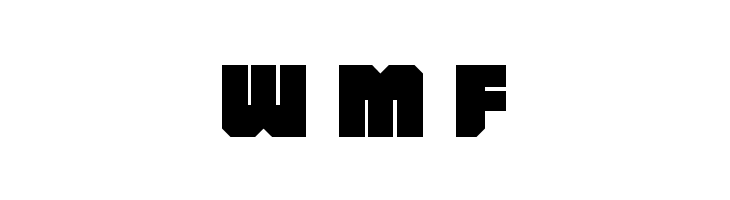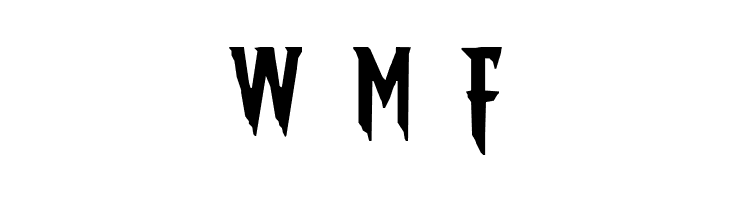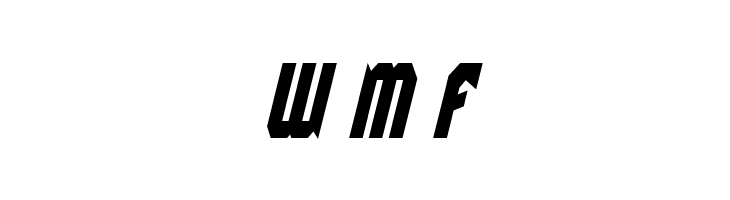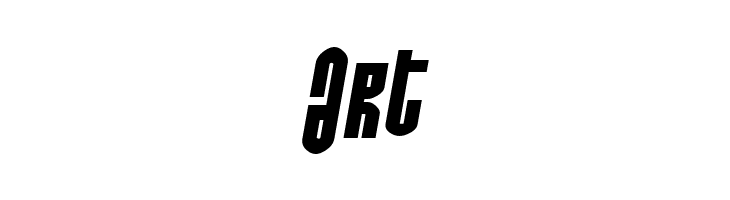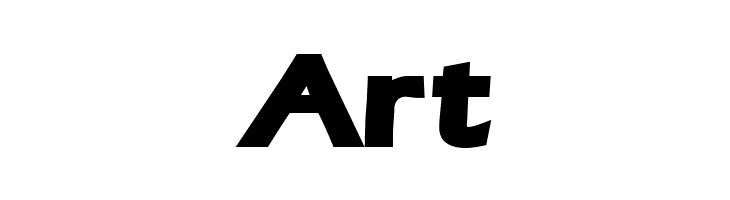
A bold, gothic-inspired font with sharp, angular edges and intricate details.
A bold, distressed font with a rugged, military-inspired design.
A bold, distressed, and condensed italic font with a rugged military style.
A bold, geometric font with a retro aesthetic, ideal for impactful designs.
A bold, italicized retro font with high contrast and dynamic style.
A bold, blocky font ideal for impactful headlines.
A bold, italic font with angular, futuristic design and strong visual impact.
A bold, uppercase font with a strong, modern presence.
A bold, geometric font with a modern and strong visual impact.
A bold, geometric font with sharp angles and a strong visual impact.
A bold, 3D-effect font with a modern, commanding presence.
A bold, impactful typeface with thick, rounded letters.
A bold serif font with sharp serifs and a strong, authoritative presence.
A bold, angular, and italicized font with a rugged, rune-like appearance.
A bold, angular, italic font with a dynamic, three-dimensional style.
A bold, angular, and expanded italic font with a dynamic and modern style.
A bold, condensed, and italicized font with sharp angles and dynamic style.
A bold, dynamic font with thick strokes and sharp edges.
A bold, condensed, and italicized font with a dynamic and energetic style.
A bold, expanded font with sharp, angular lines and a modern geometric style.
A bold, condensed font with a geometric and modern style.
A bold, geometric font with tall, narrow characters and sharp angles.
A bold, italicized font with a modern, energetic style and high contrast.
A bold, italic, and condensed font with a dynamic and energetic style.
A bold, condensed blackletter-style font with a dramatic and impactful design.
A bold, italicized font with a futuristic and angular design.
A bold, geometric typeface with a modern and professional appearance.
A bold, 3D font with a strong, dynamic presence and a superhero-inspired style.
A bold, geometric font with sharp angles and dynamic style.
A bold, outlined font with a strong geometric structure, perfect for impactful designs.
A bold, italicized font with a dynamic and heroic style.
A bold, condensed, and italicized font with a modern and dynamic style.